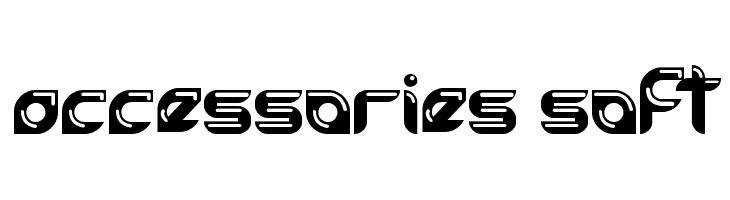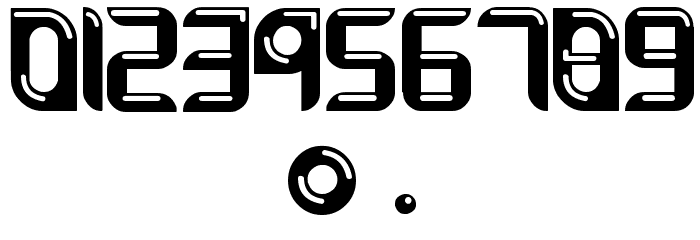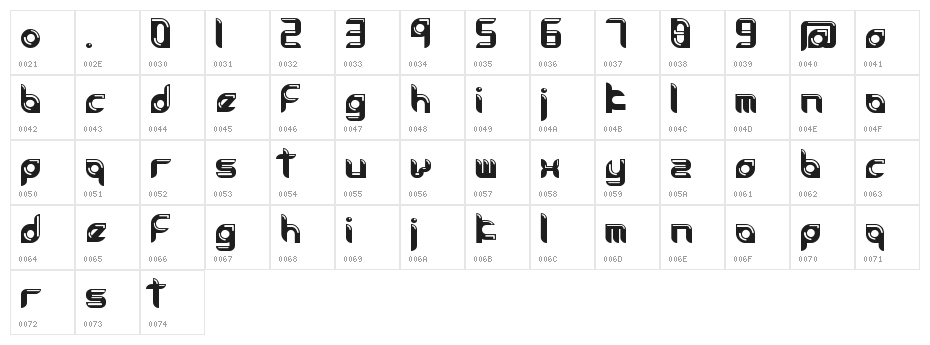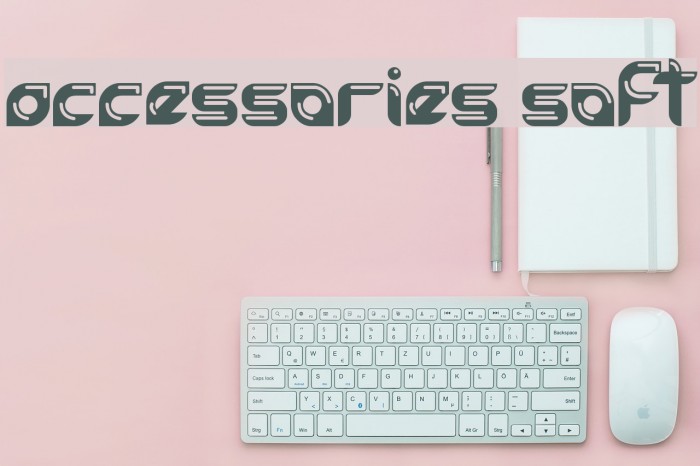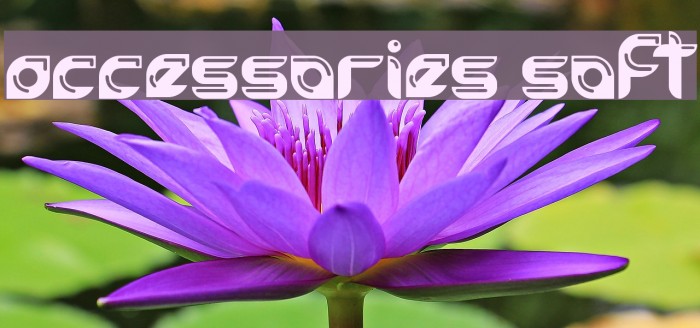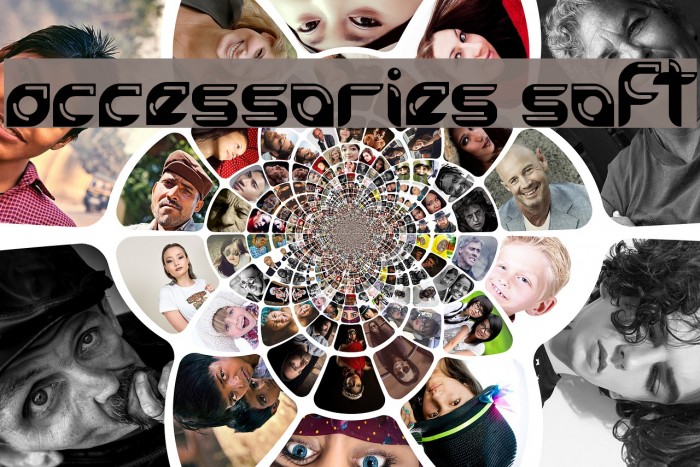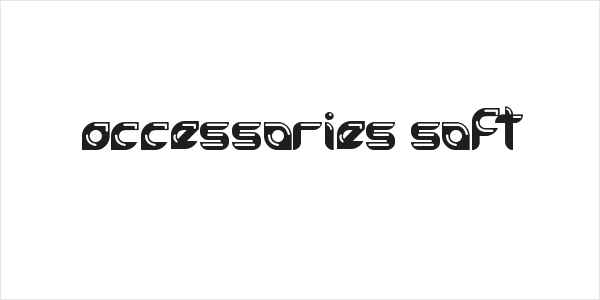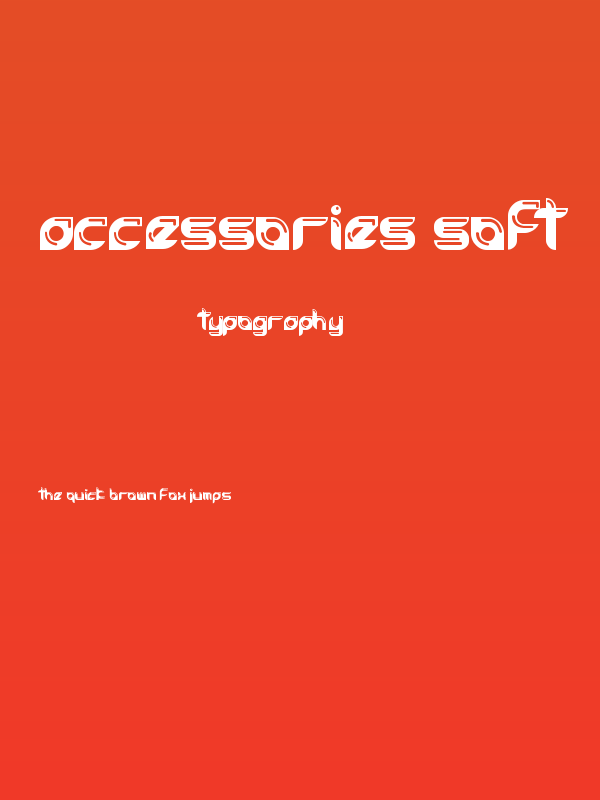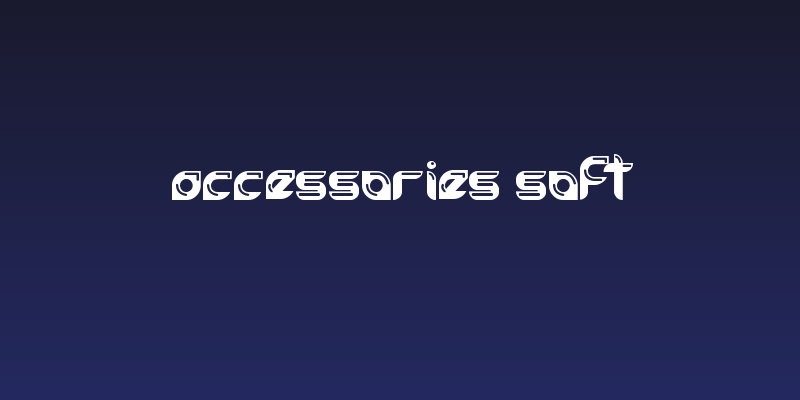
accessories soft Font
accessories soft Description
This font features a bold and futuristic design with a unique geometric style. The characters are constructed with thick, rounded edges and incorporate cut-out sections that add a sense of modernity and innovation. The overall appearance is both playful and technical, making it stand out in any design. The letters and numbers are consistent in their boldness, with a uniform width that maintains readability while offering a distinctive visual appeal. The special characters follow the same design principles, ensuring cohesion across all elements.
| Proposed Projects | Ideal for technology branding, sci-fi themed projects, video game titles, and modern advertising campaigns. |